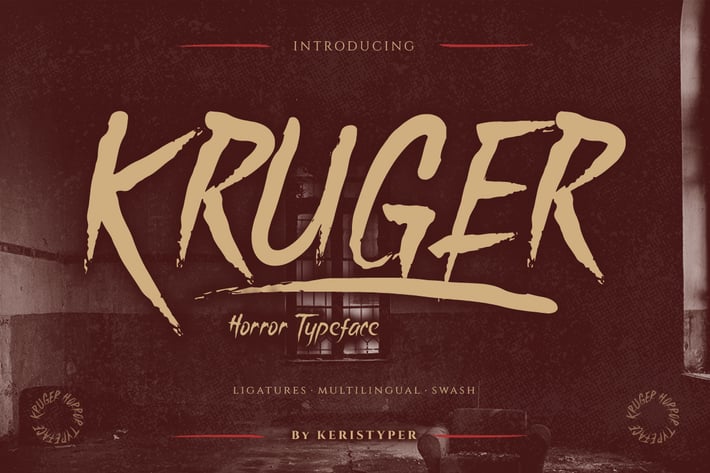
Kruger Font
Kruger is a Horror font ready to be splattered on your design projects. Inspired by a horror movies. This font is good for logo design, Social media, Movie Titles, Books Titles, short text even long text letters, and good for your secondary text font with sans or serif.
Standard Uppercase & Lowercase
Multilingual : ä ö ü Ä Ö Ü ß ¿ ¡
Alternate & Ligature